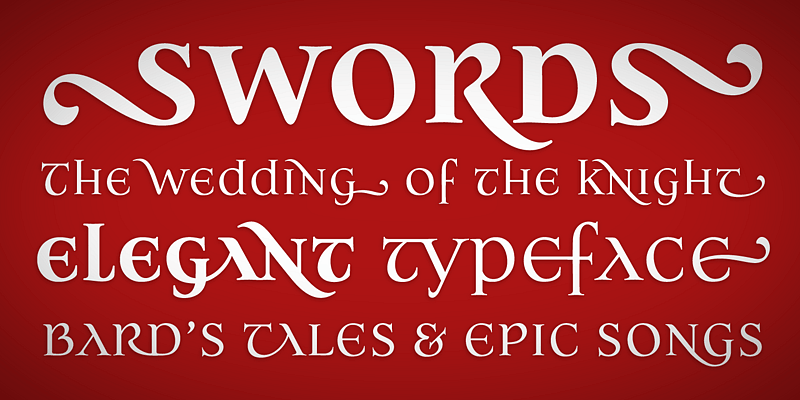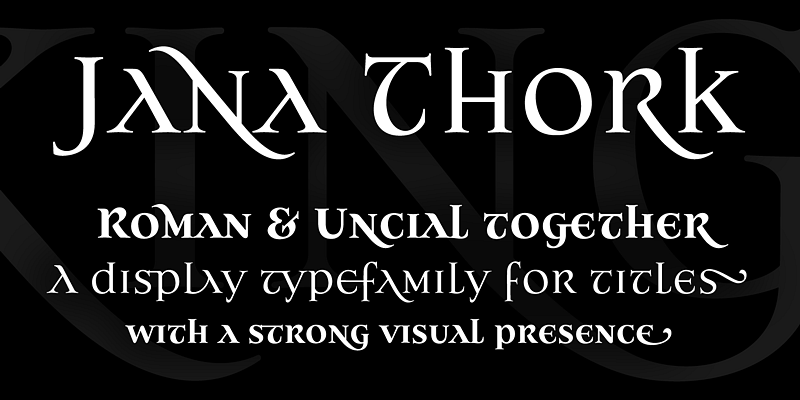
Jana Thork is a synthesis of stone engraved capital letterforms and uncial and half-uncial calligraphic styles. The idea of the typeface designer Ricardo Esteves was to seek for the limits between our uppercase and lowercase mental concepts. This family can be useful to compose titles, short texts, labels and letterings that need to look attractive to the eye. The family includes Regular and Bold styles, so it can be used in graphic designs that need more complex hierarchic relations or greater visual impact.